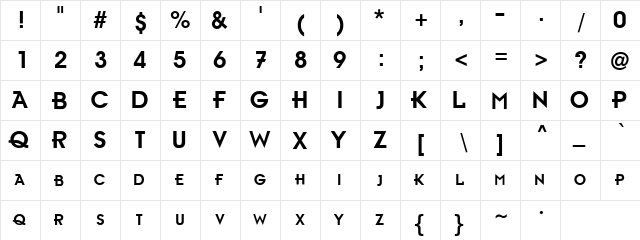
Ambient Medium
Design Context for Ambient Typeface
Ambient takes a measured approach to typography — its balanced proportions and neutral character make it a reliable workhorse for both digital and print work.